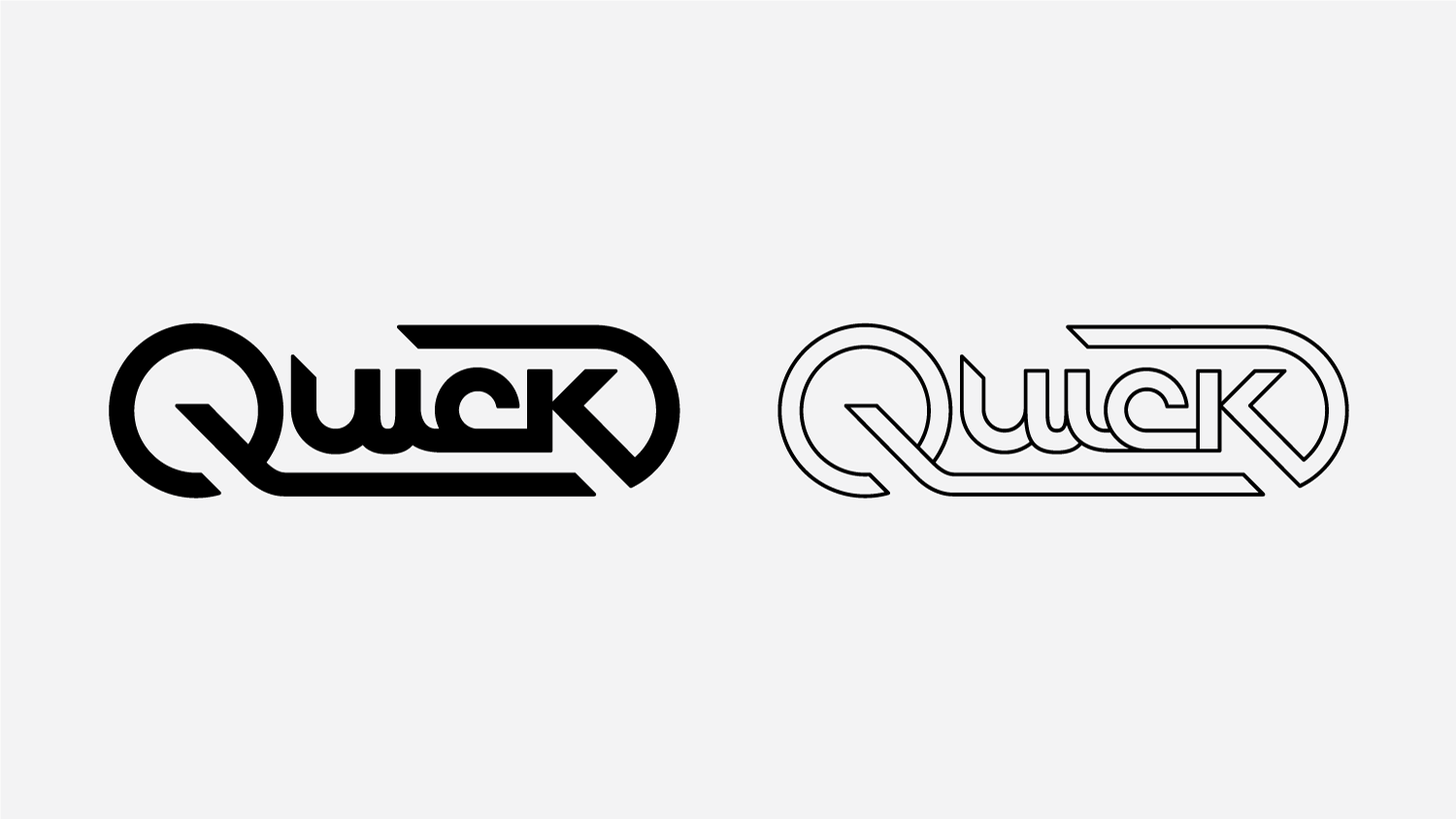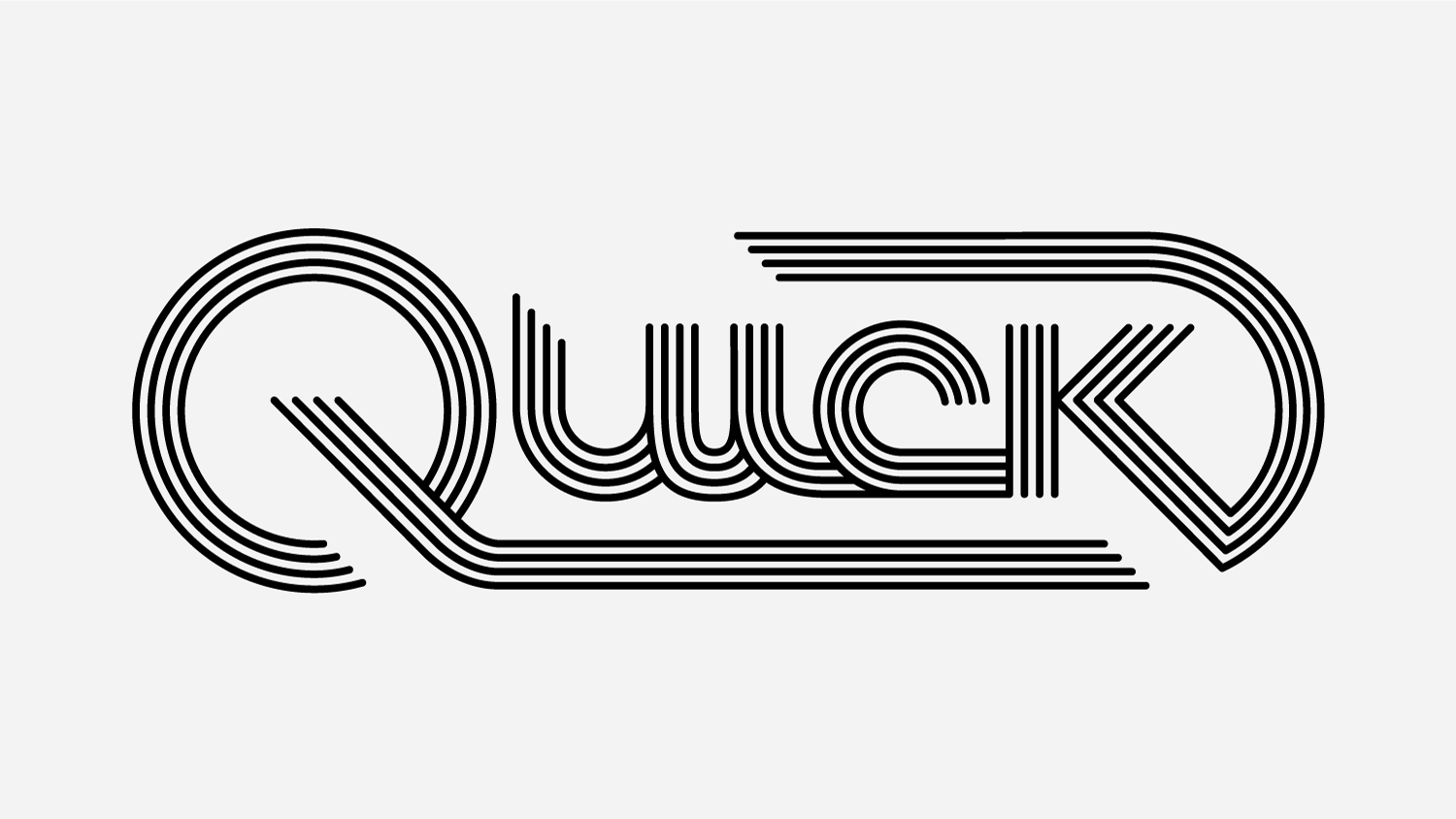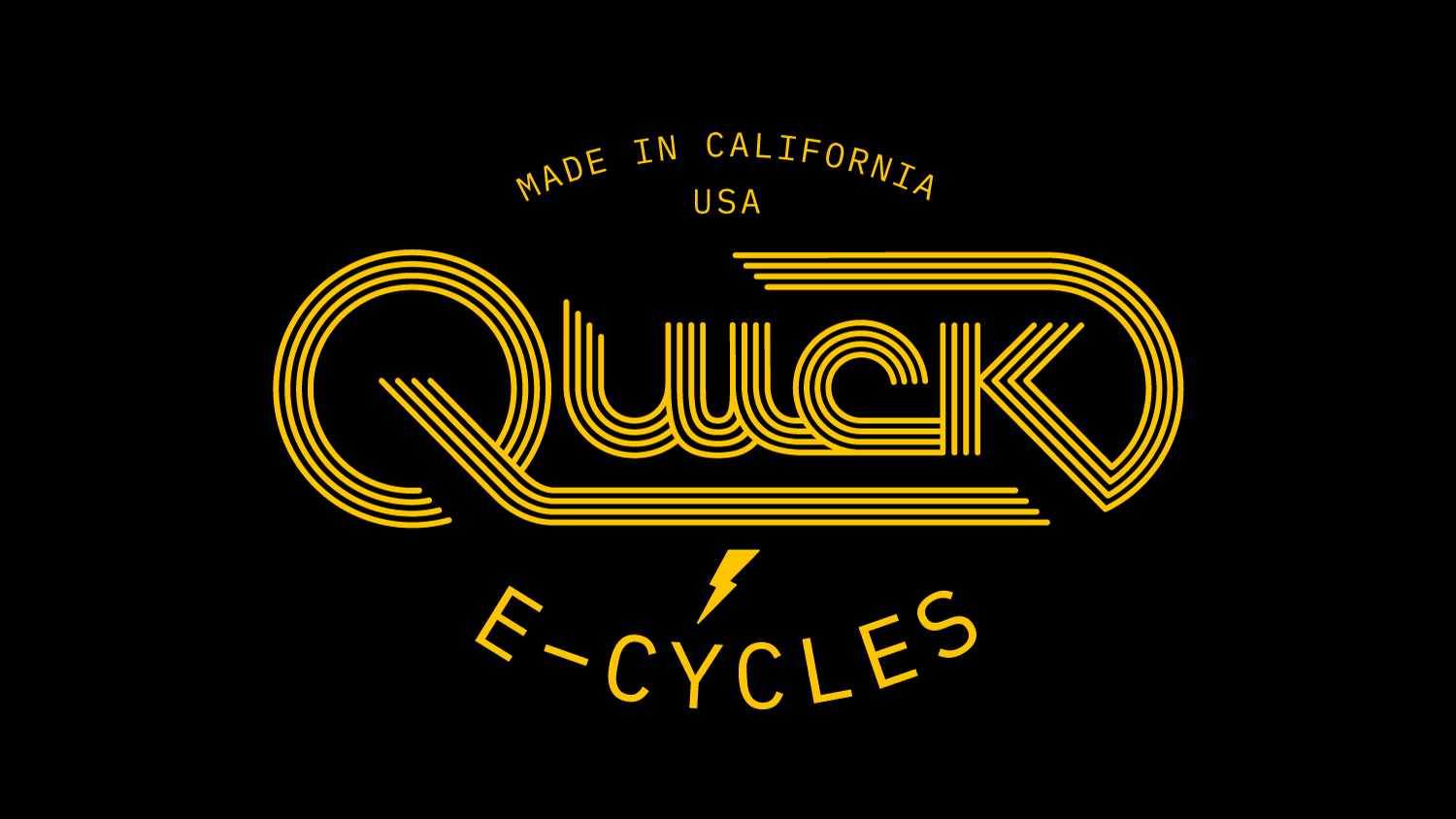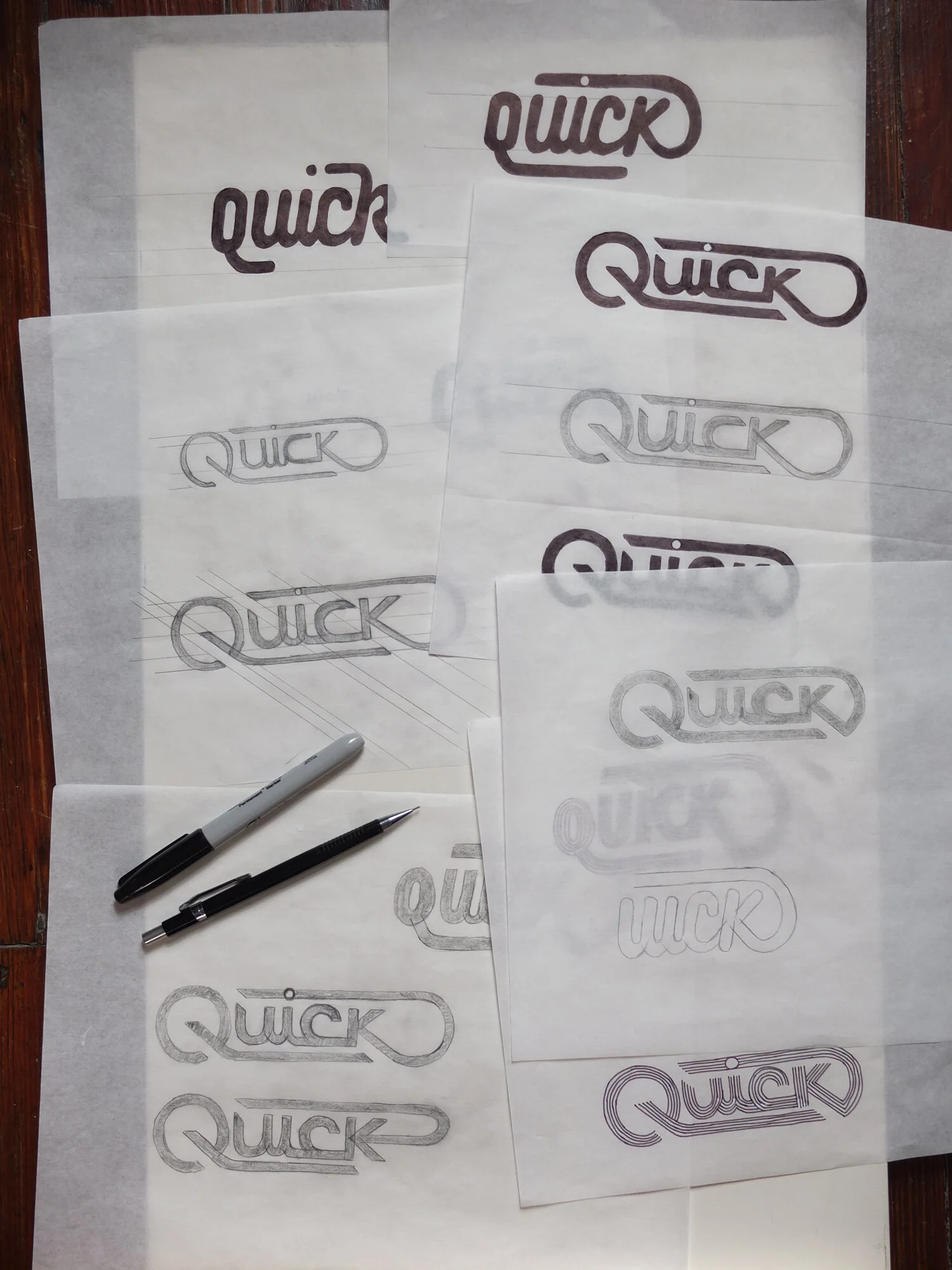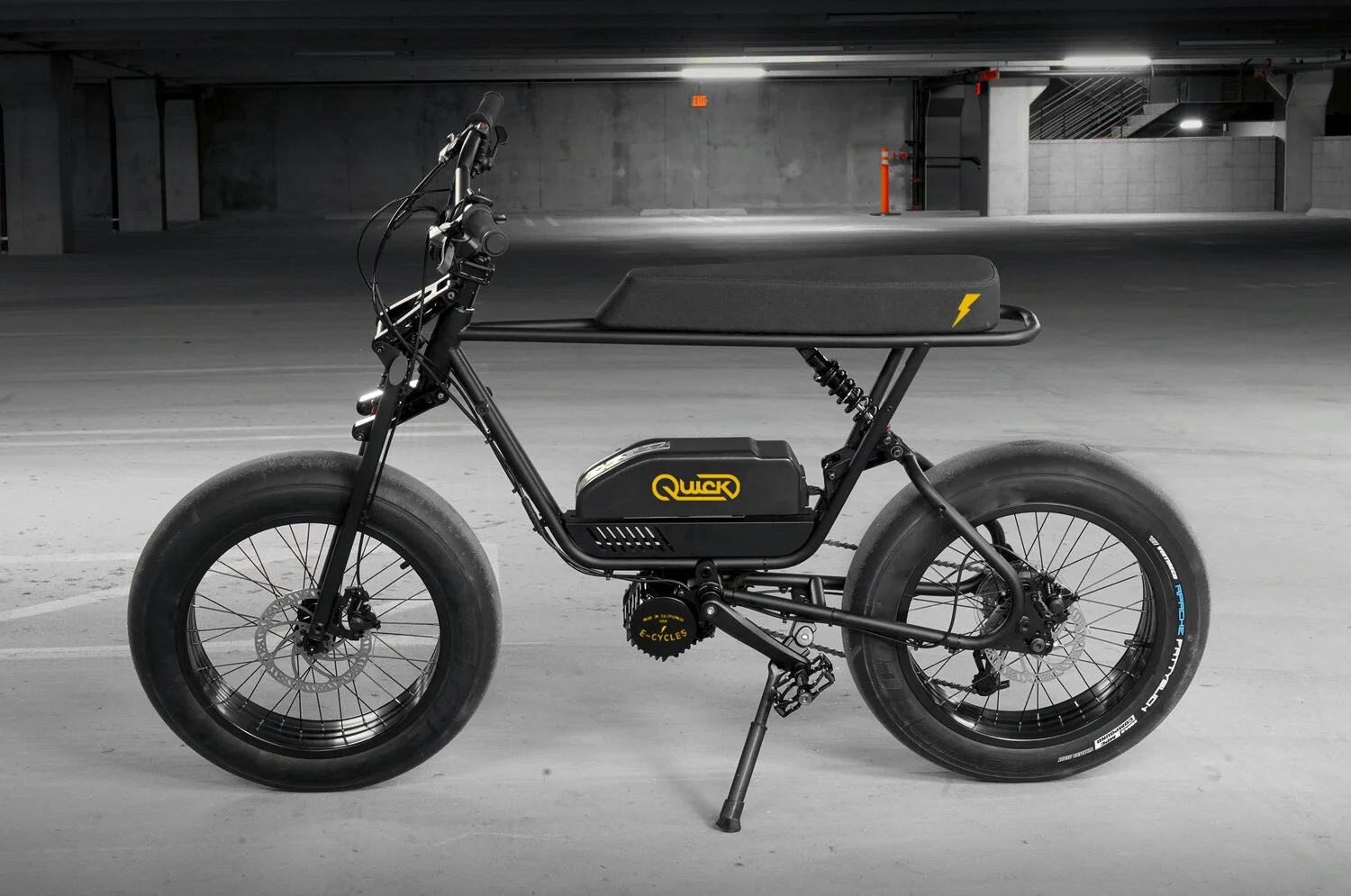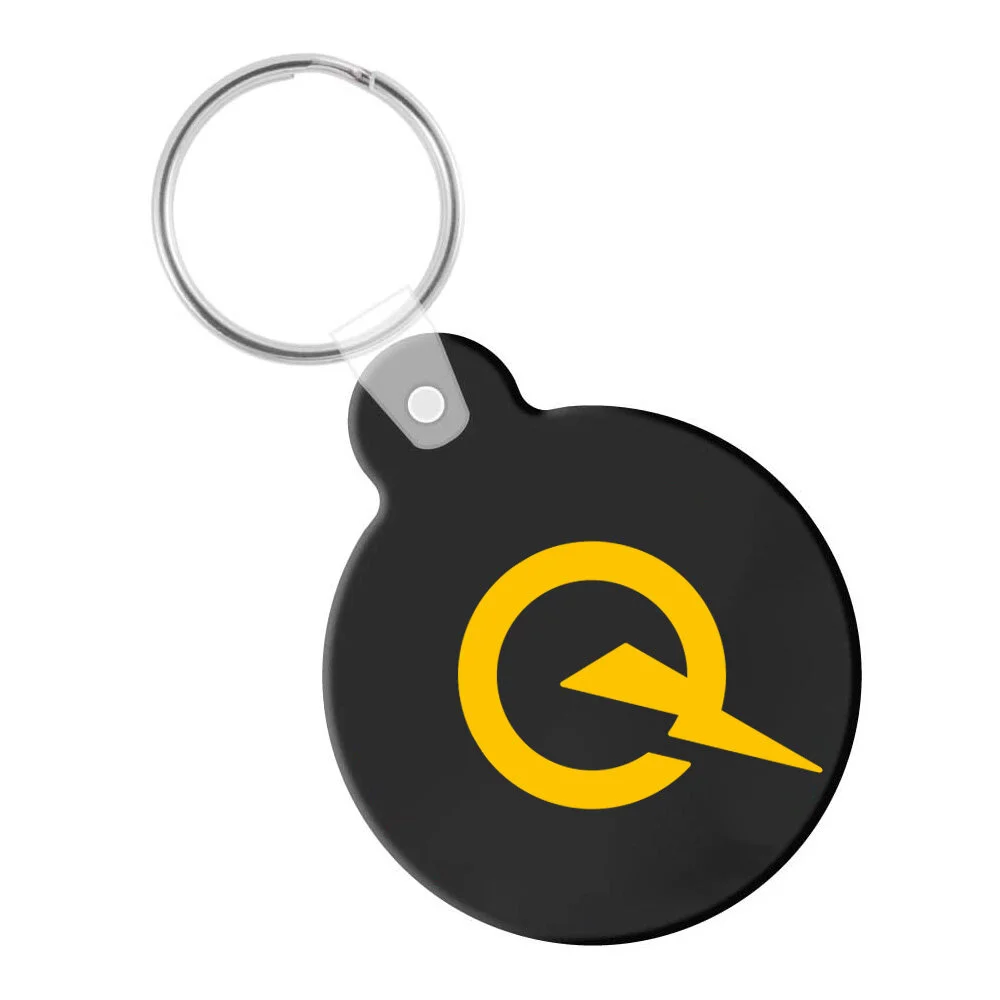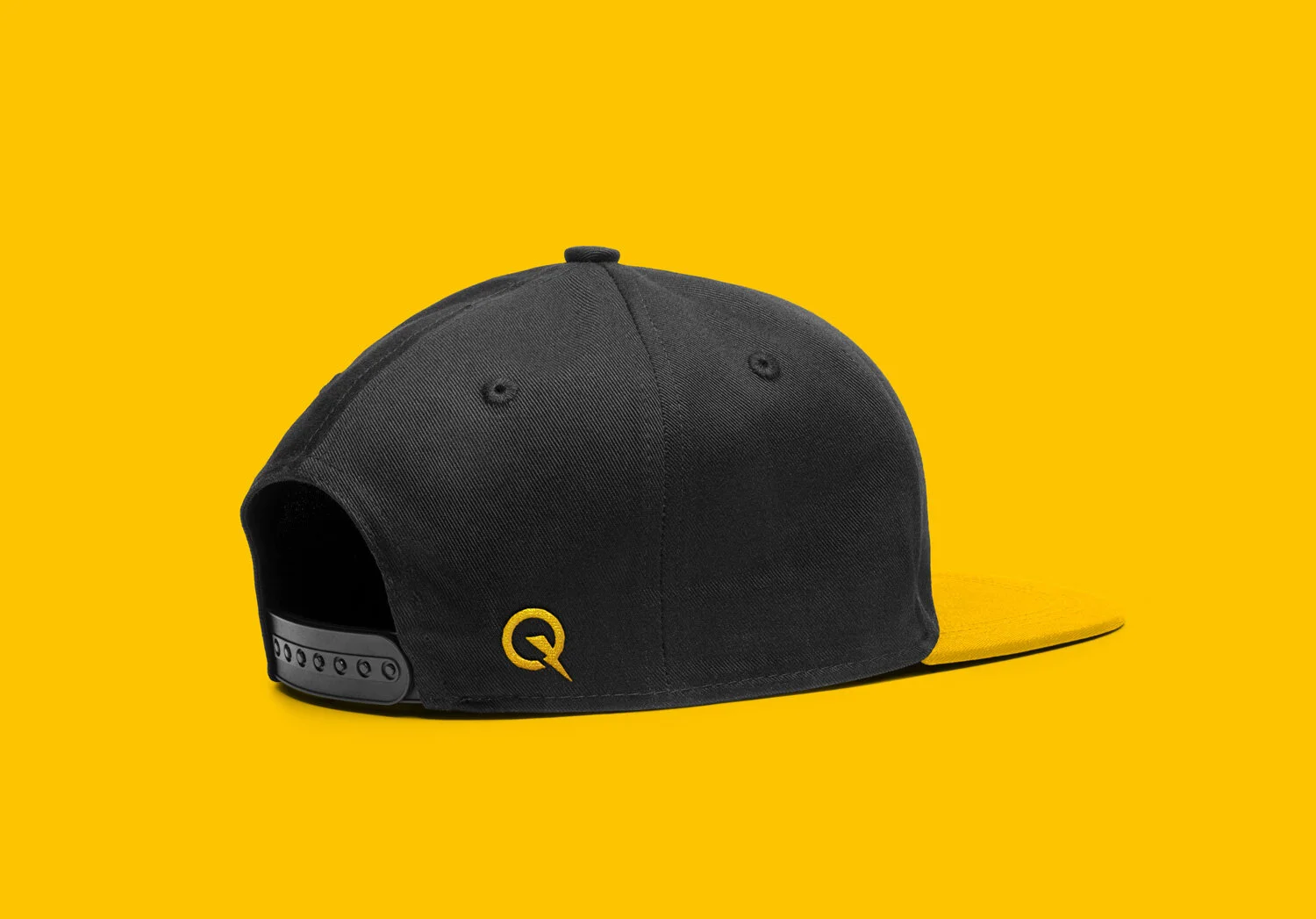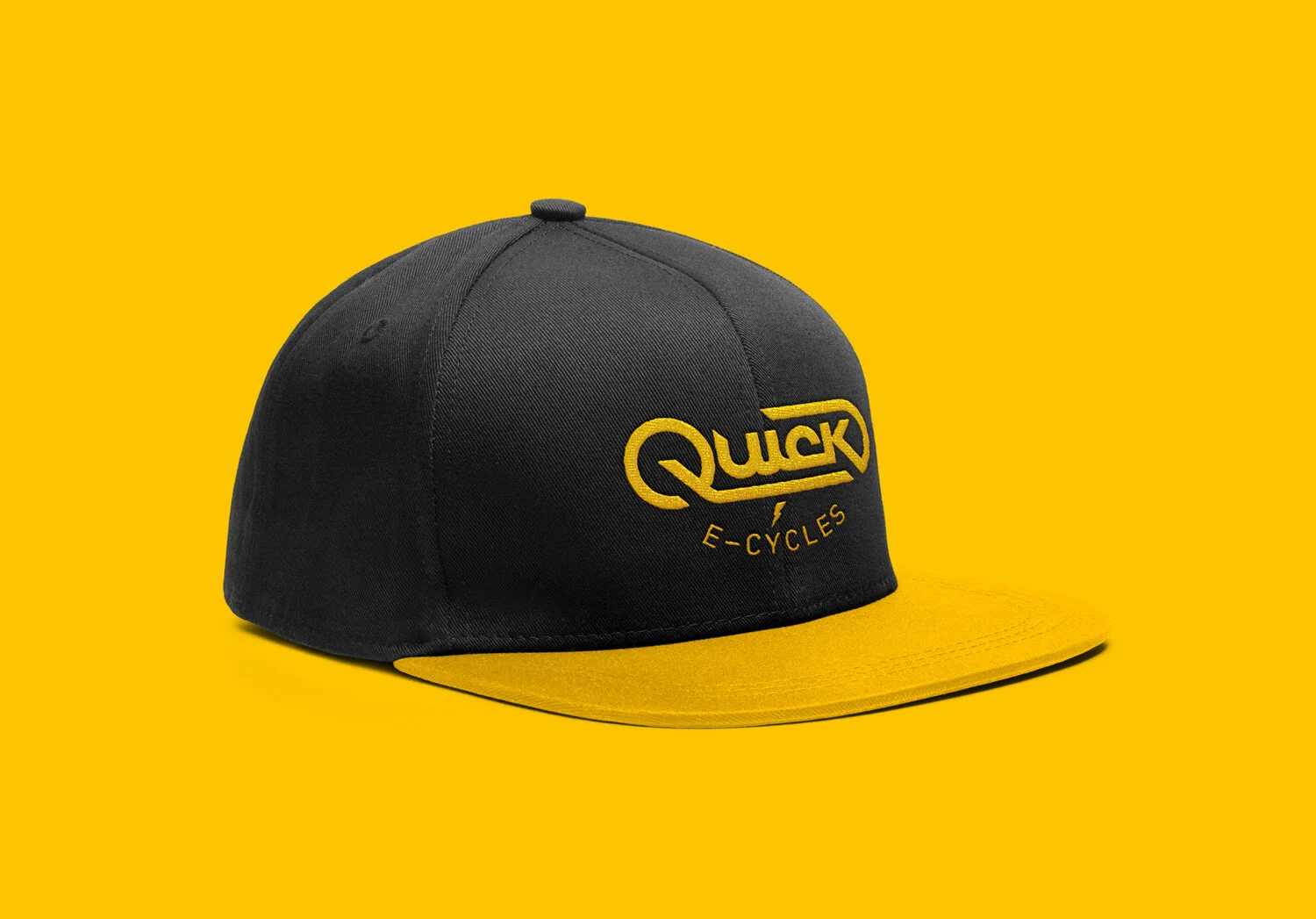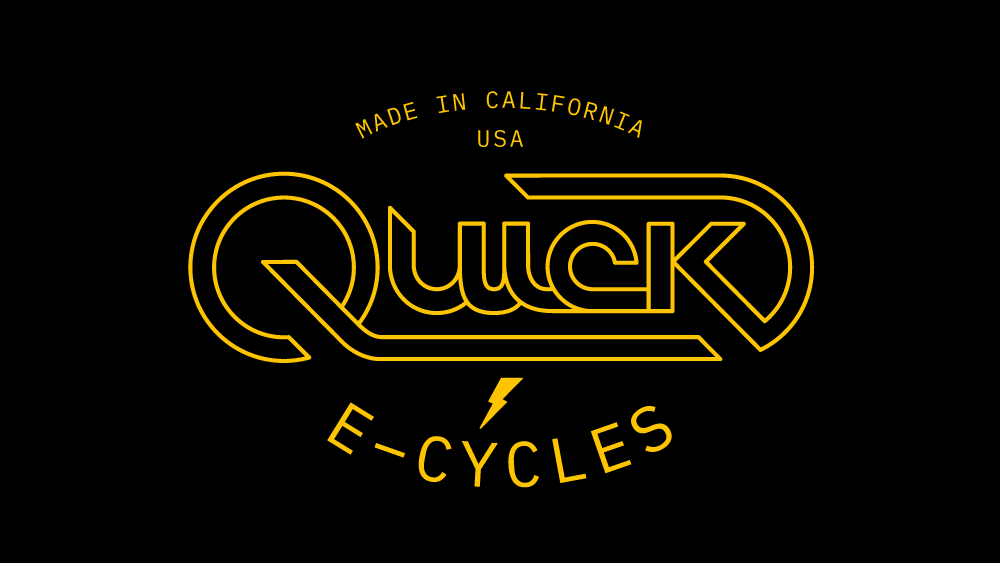
Quick
Brand identity for an electric bike manufacturer
Logotype inspired by the speed and thrill of a velodrome cycling arena
Logo lockups: Velo, Solid, and Outline